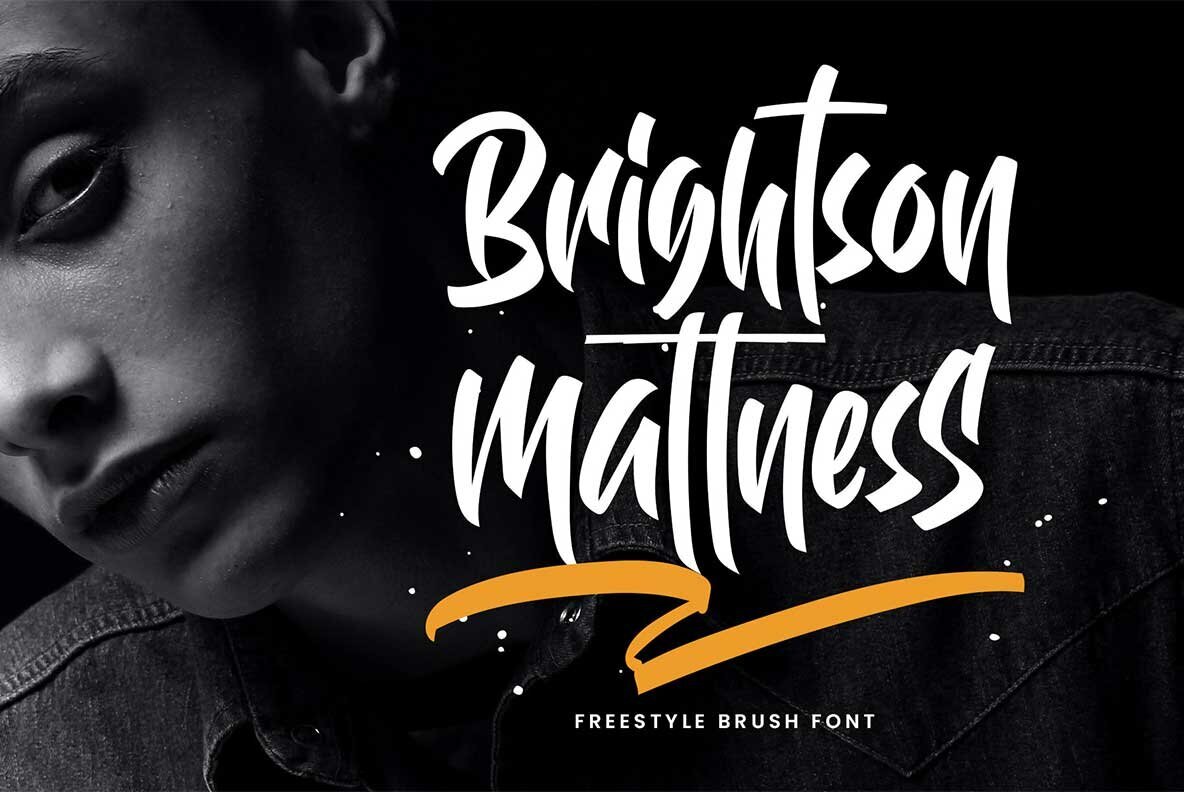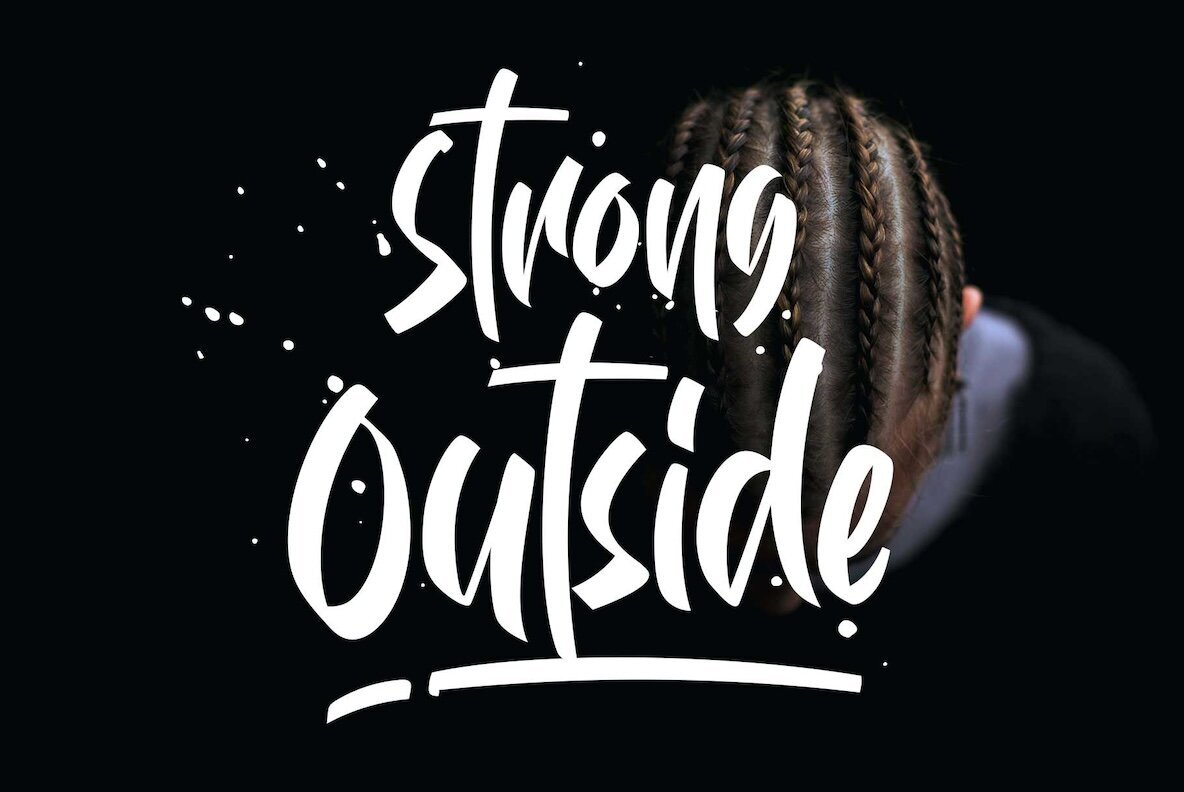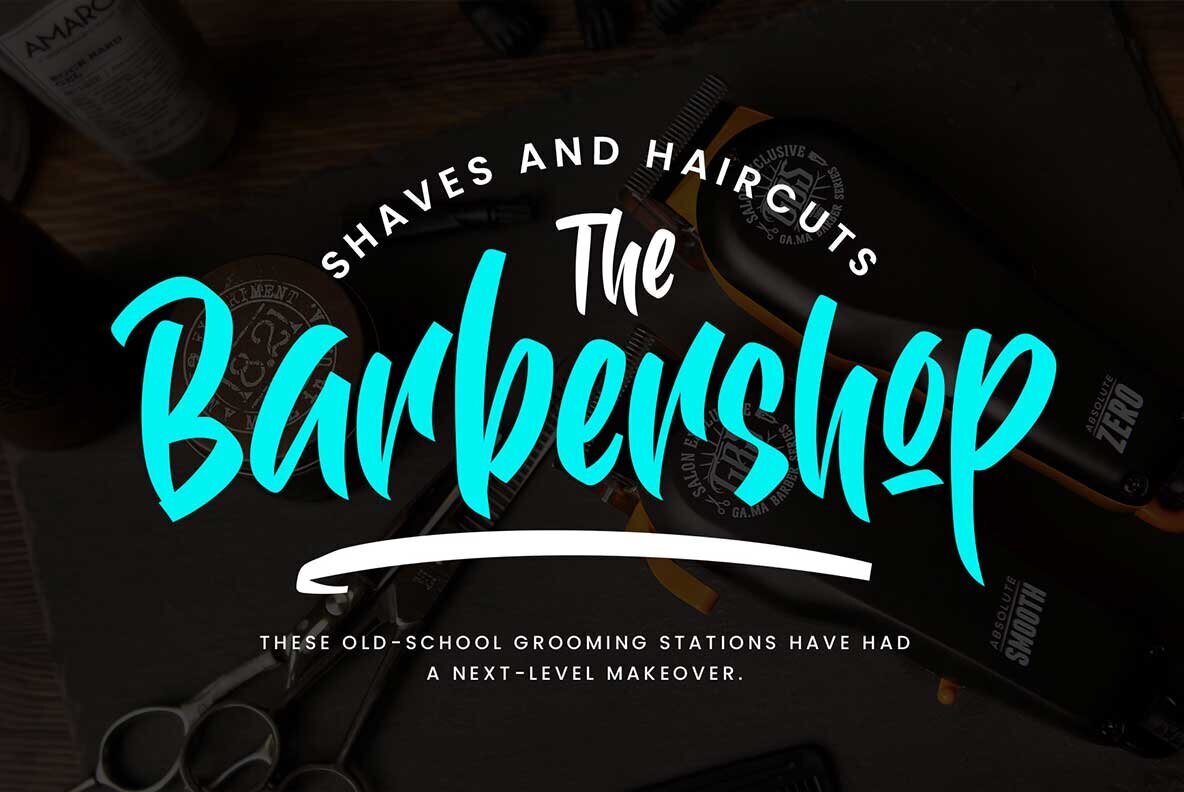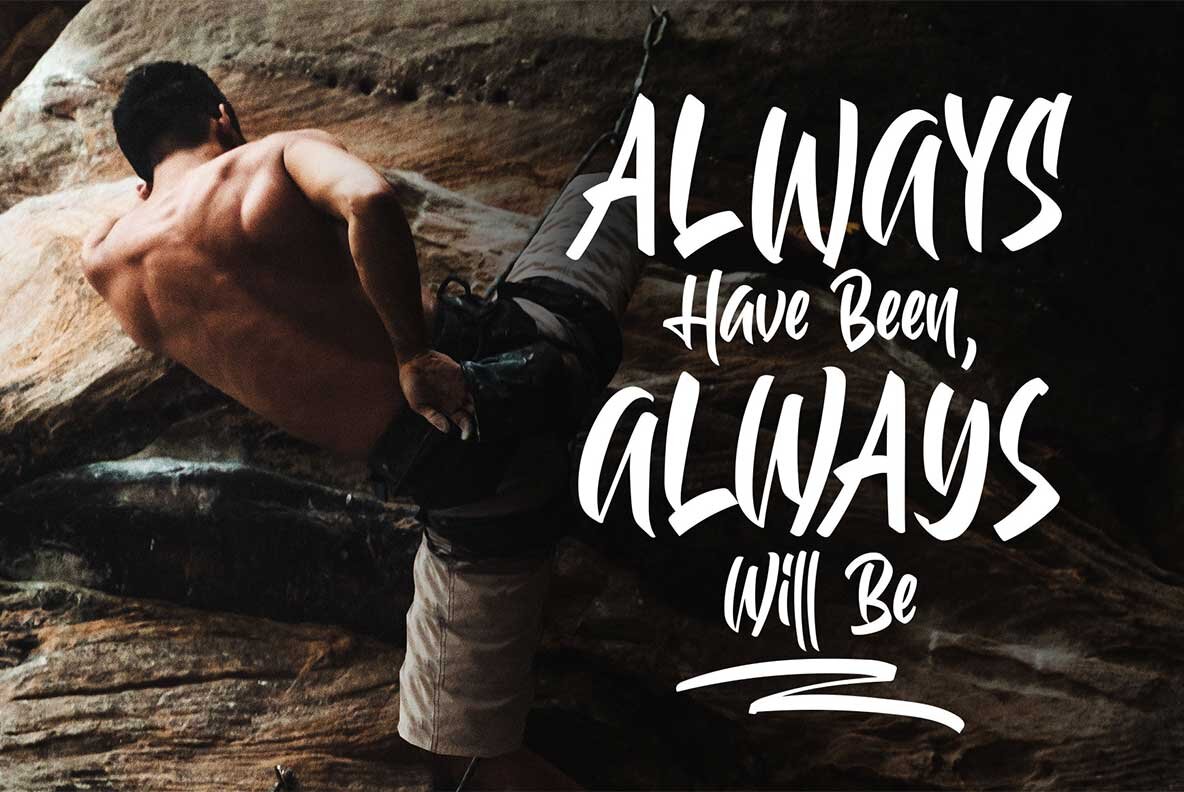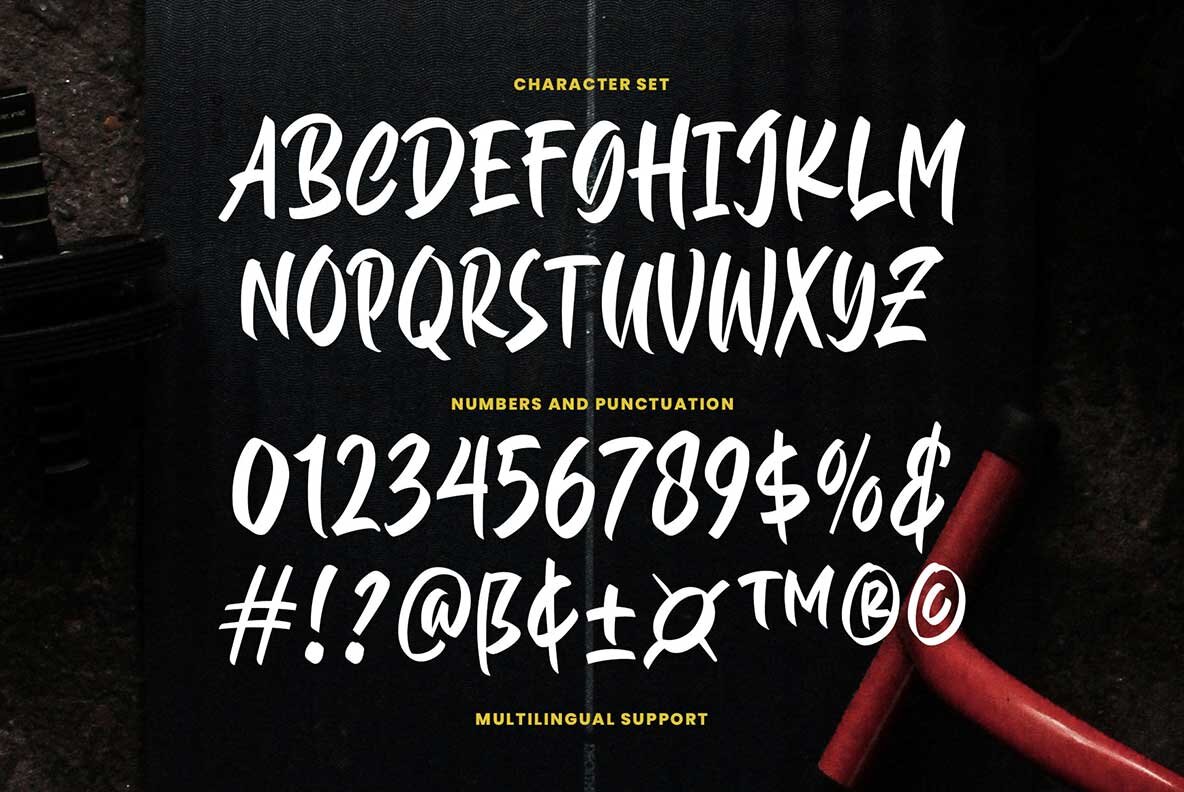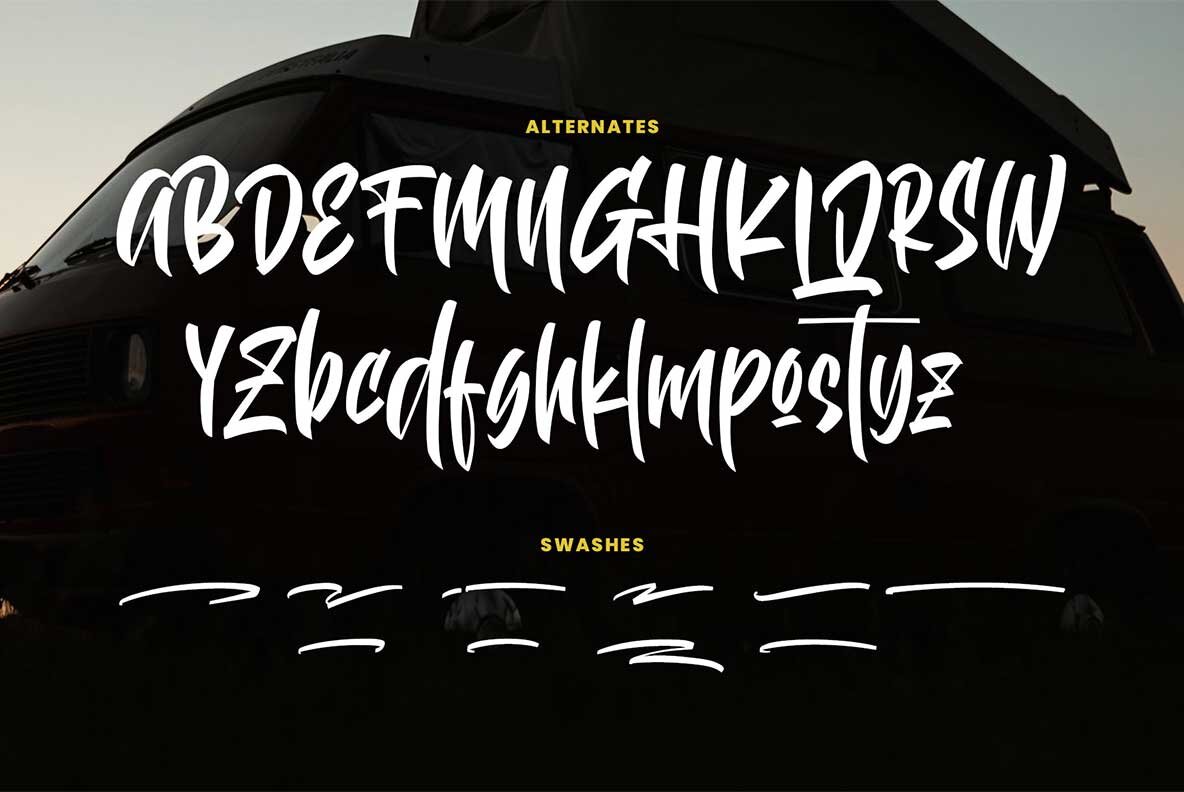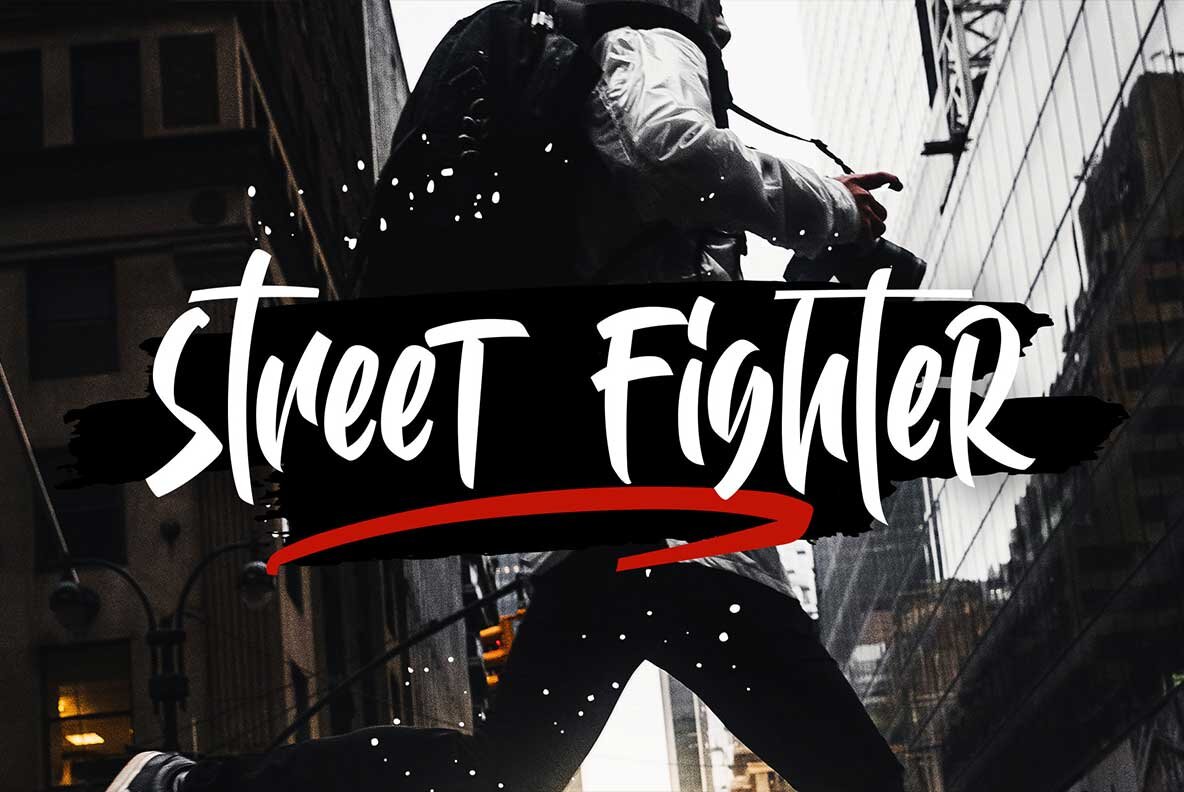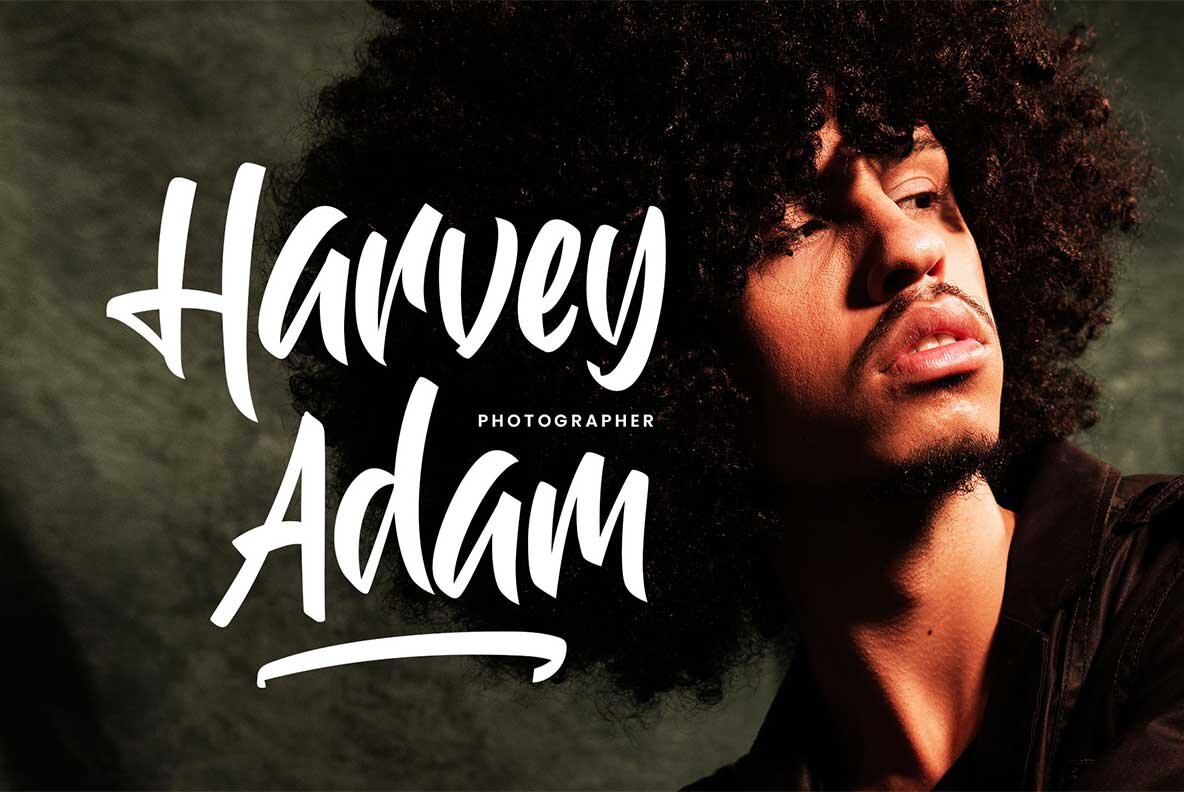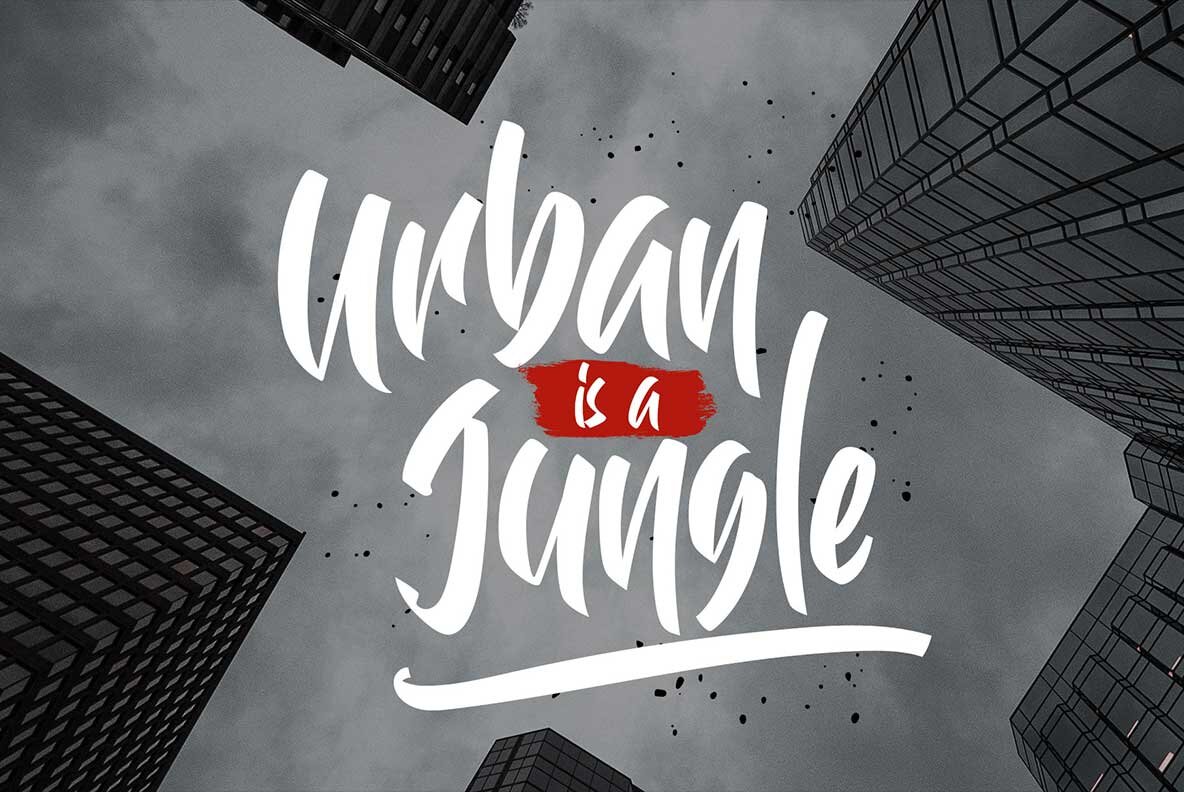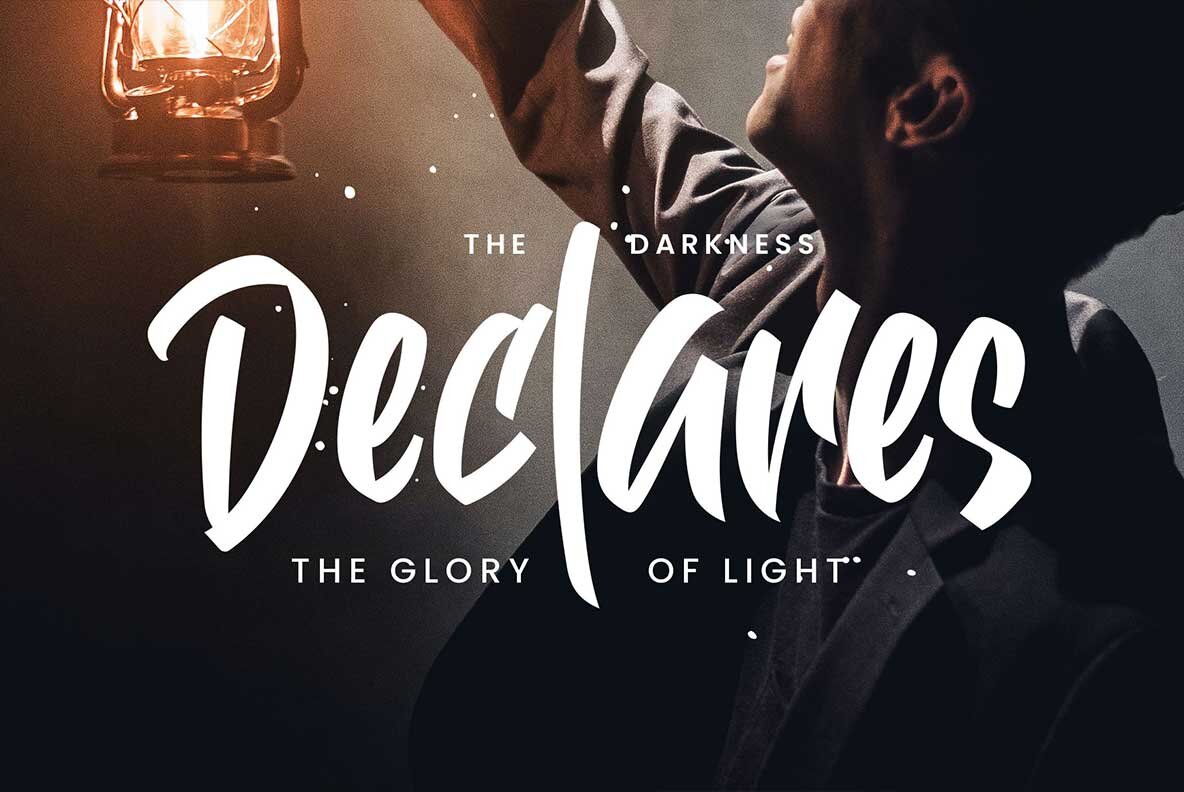
Brightson Mattness Font
Brightson Mattness Regular
Brightson Mattness brings a dynamic edge to your creative projects. This freestyle brush font delivers bold energy and a playful character with every stroke, making it a standout choice for posters, logos, motion graphics, packaging, and apparel. Its naturally expressive look draws attention while keeping your designs fresh and engaging. Packed with special characters and distinct swashes, Brightson Mattness offers you the flexibility to create a truly authentic result. Versatile and accessible, this font injects personality into any piece, supporting multilingual projects and providing stylistic alternates for tailored design solutions.Brightson Mattness Freestyle Brush Font